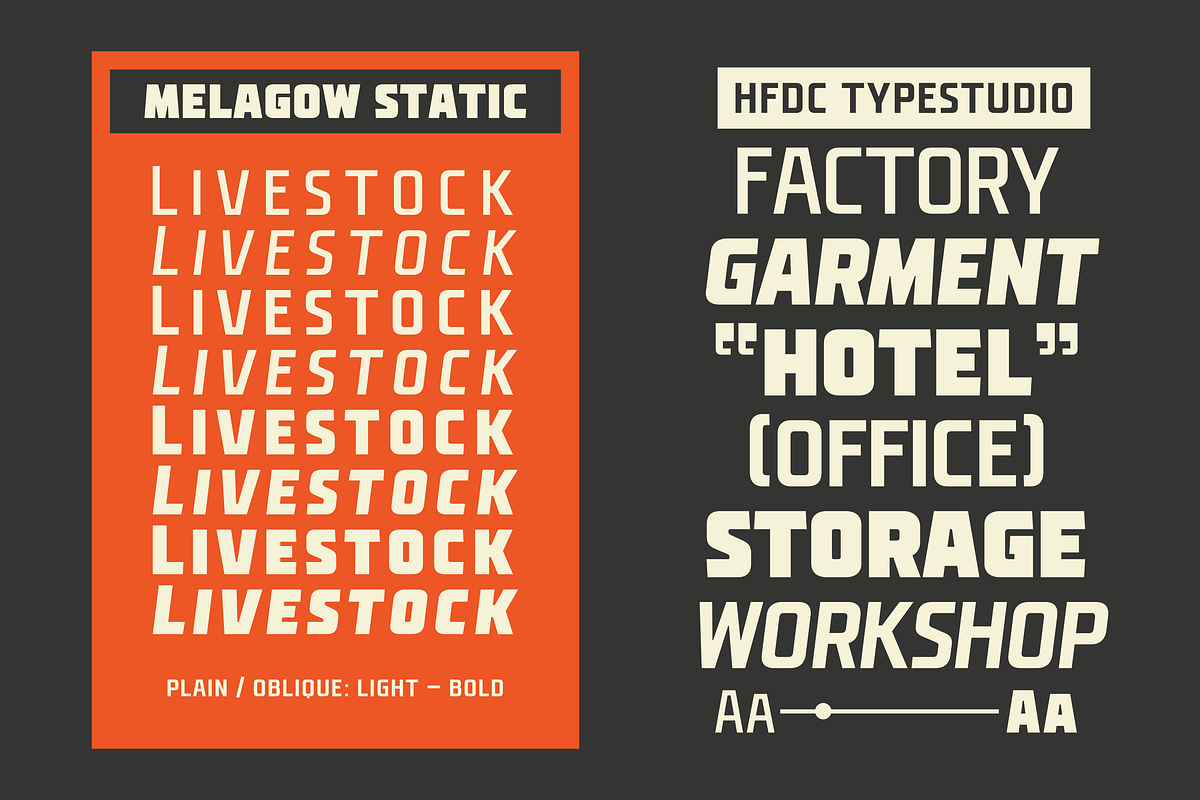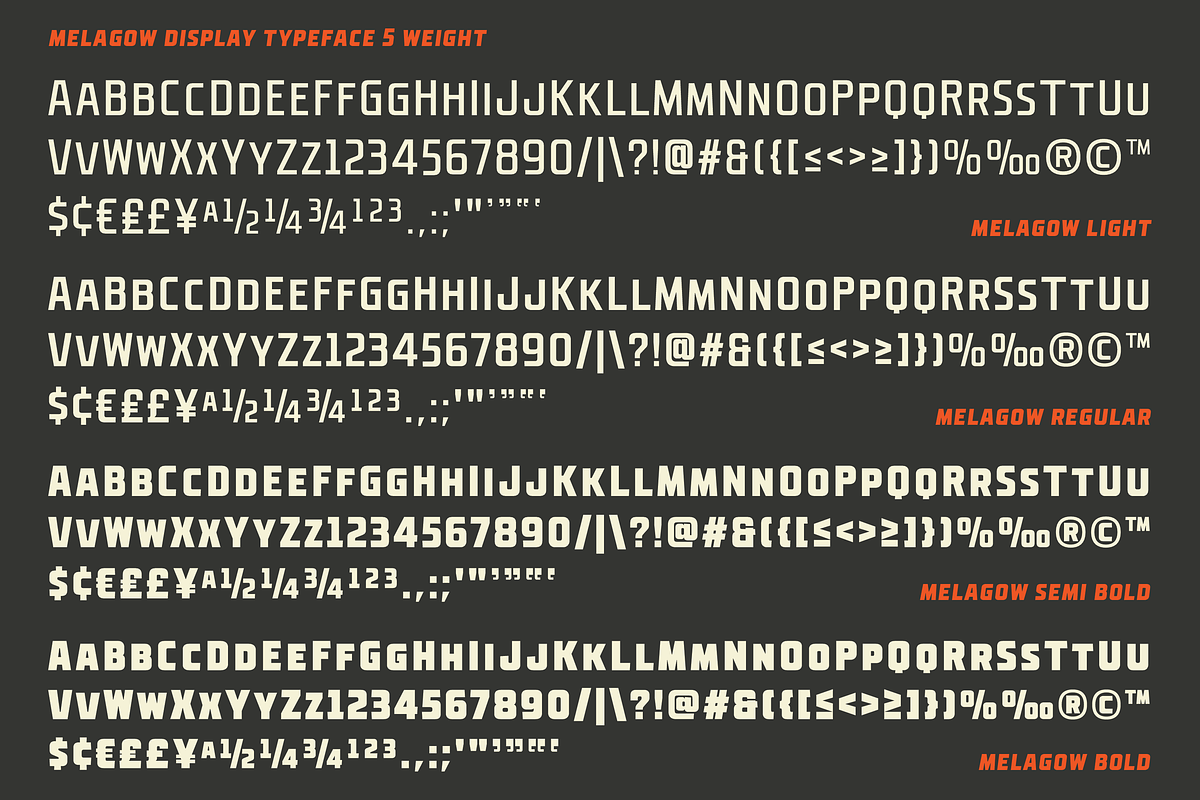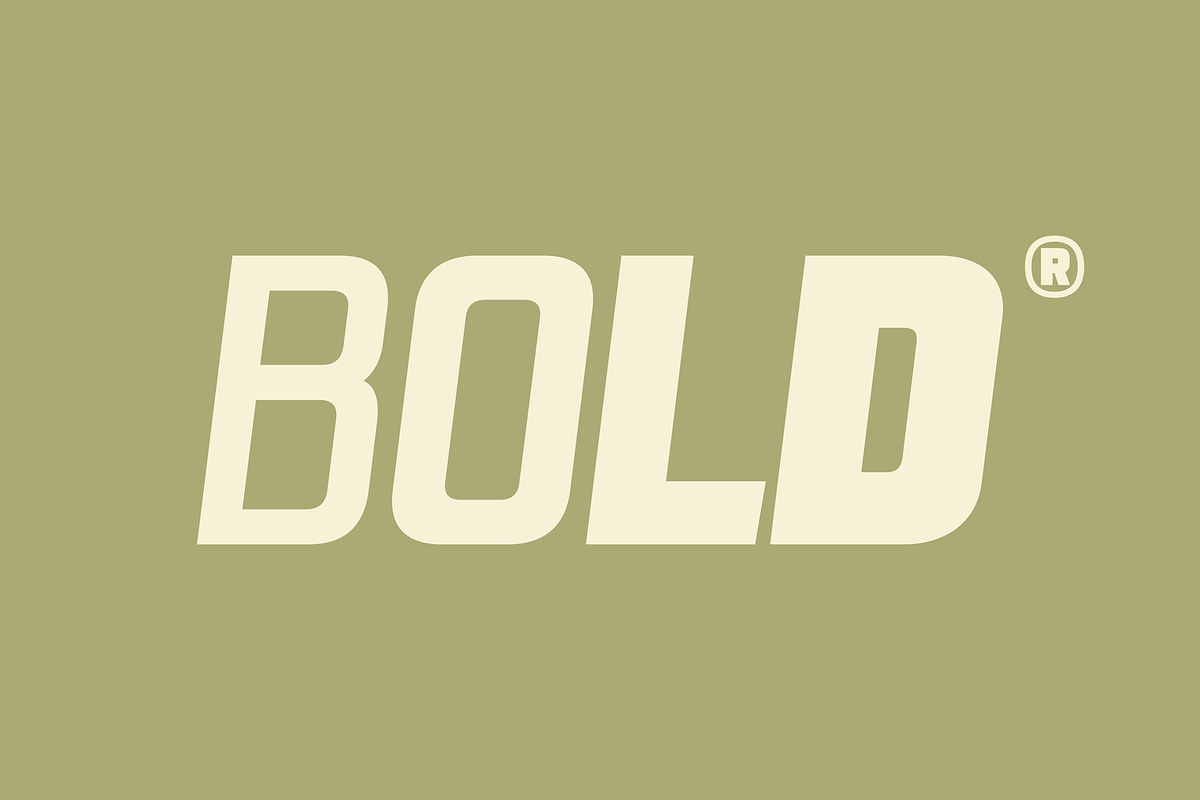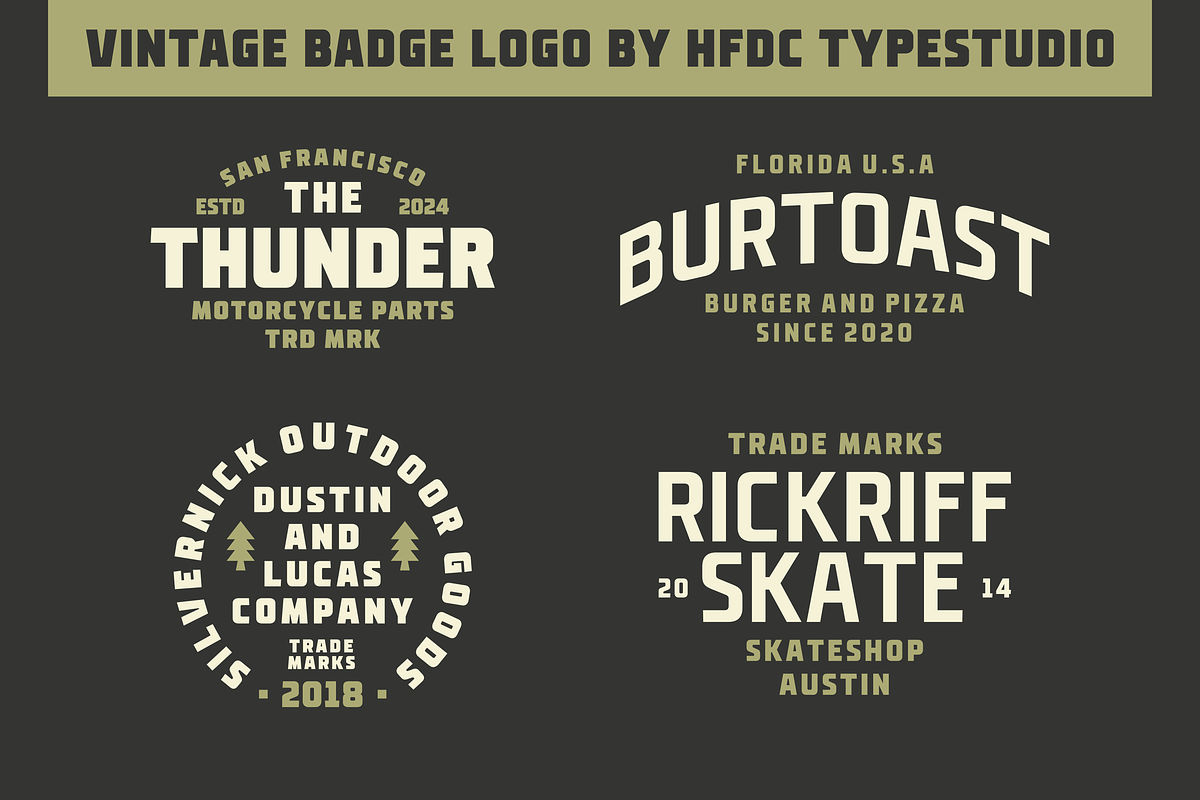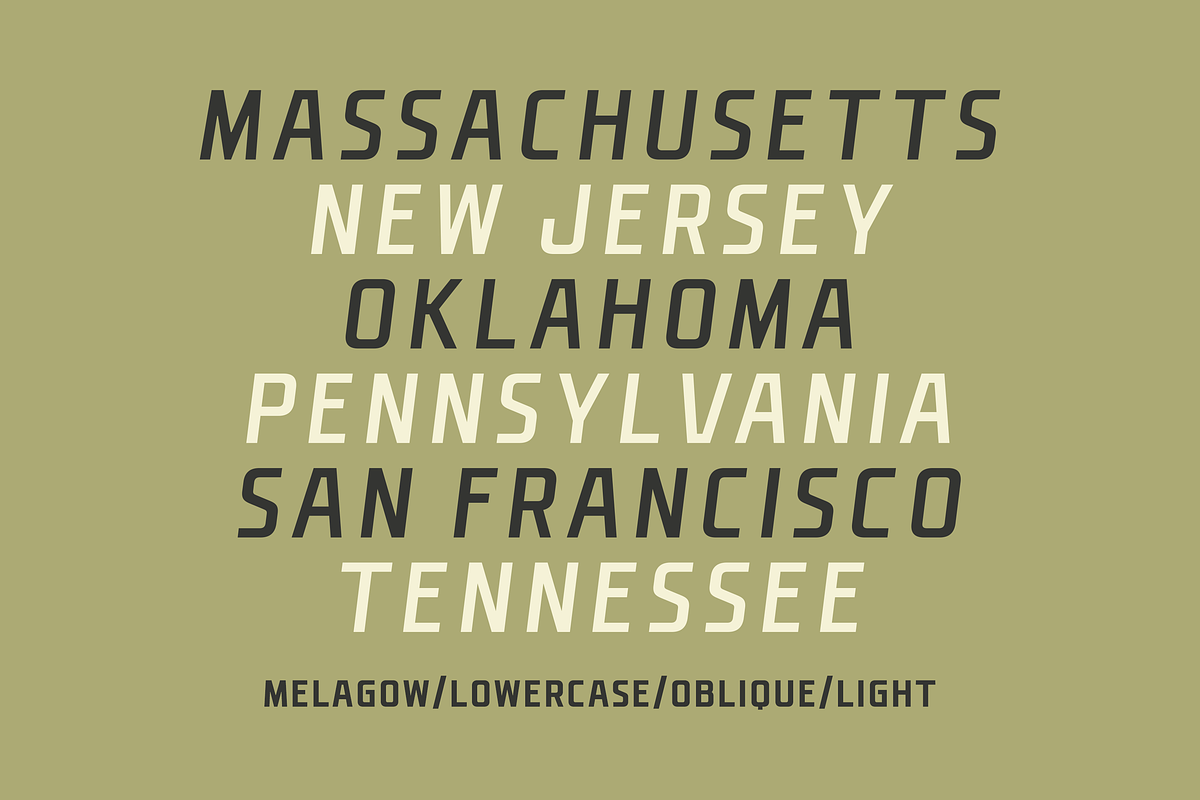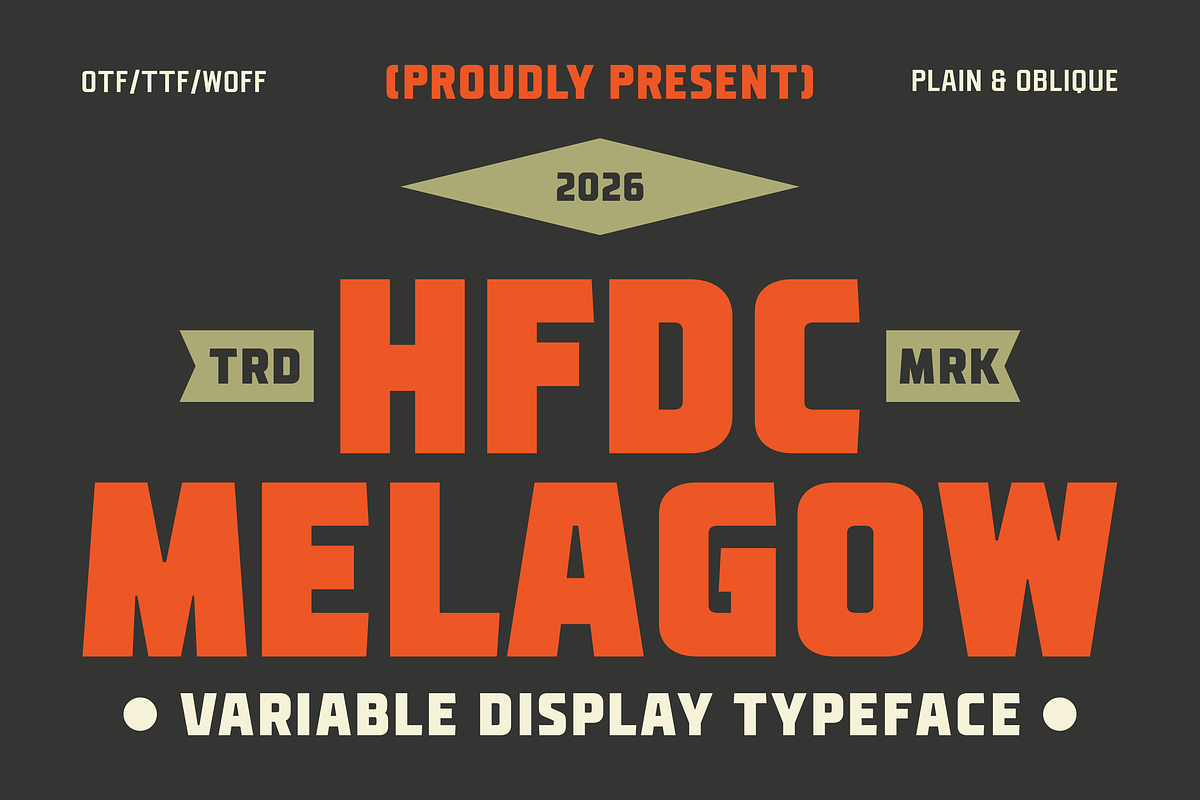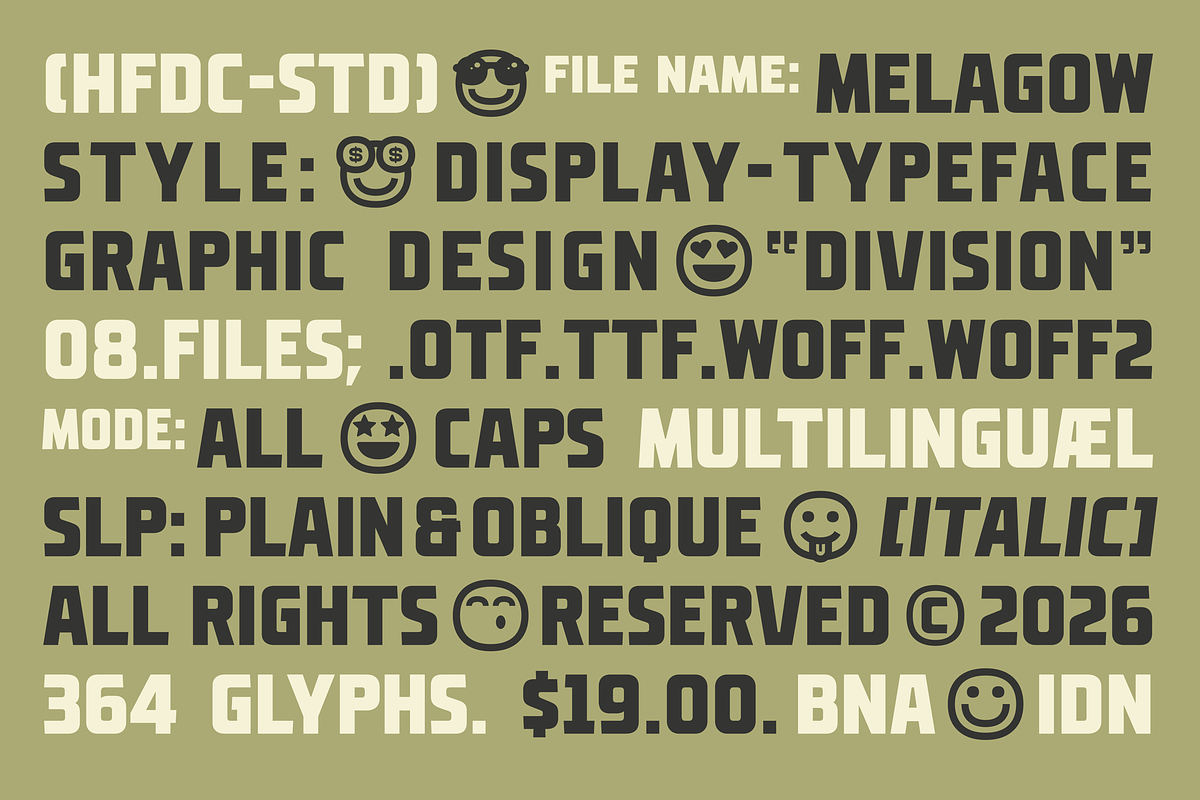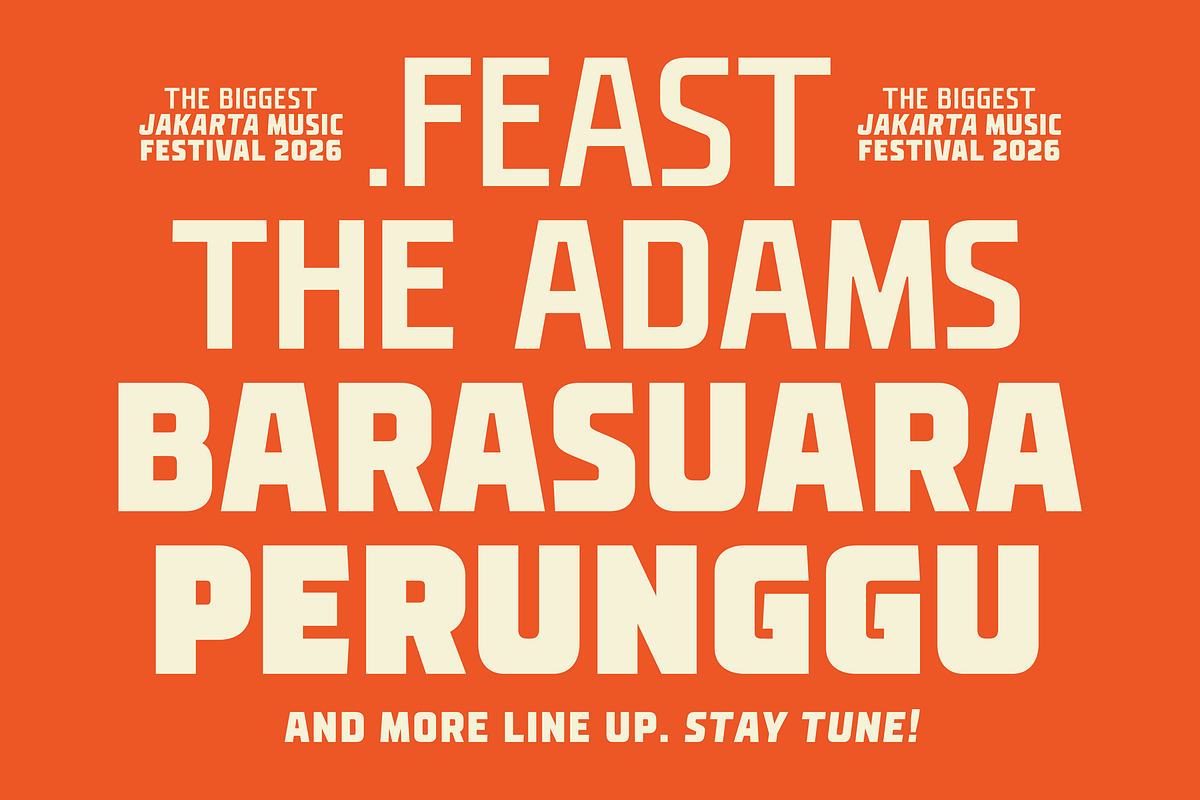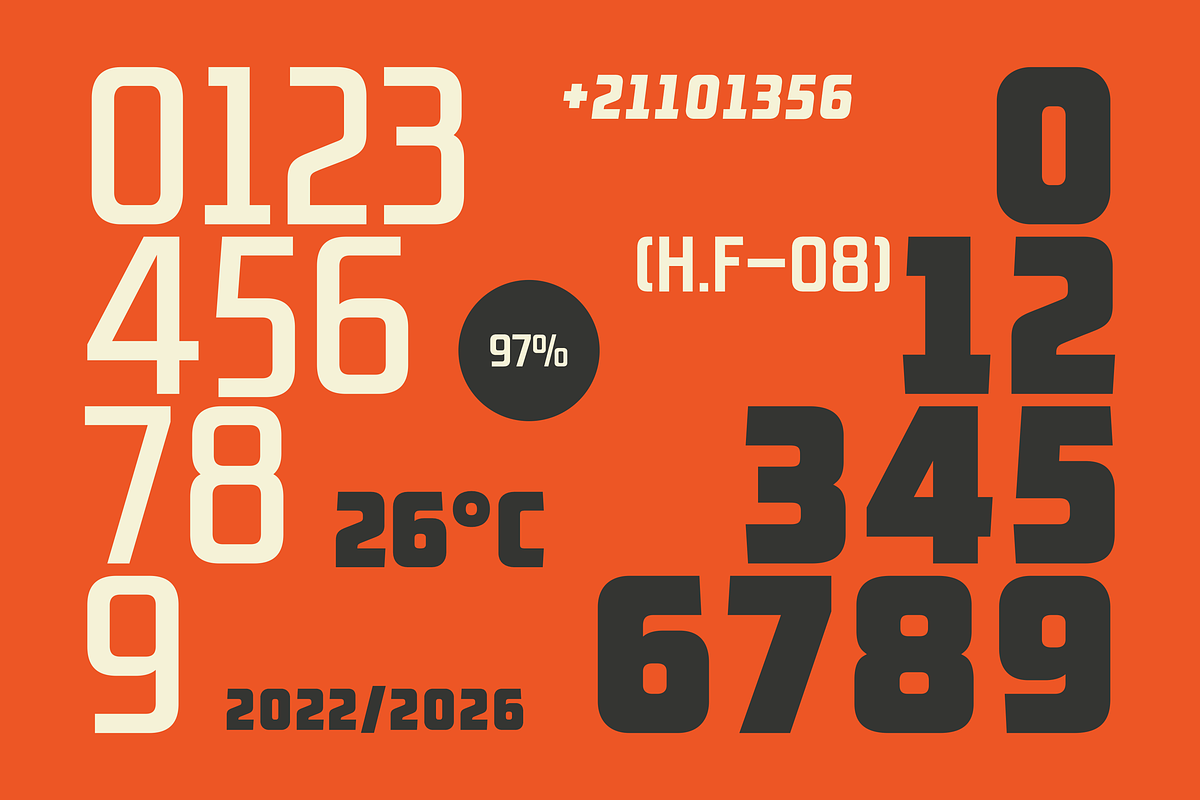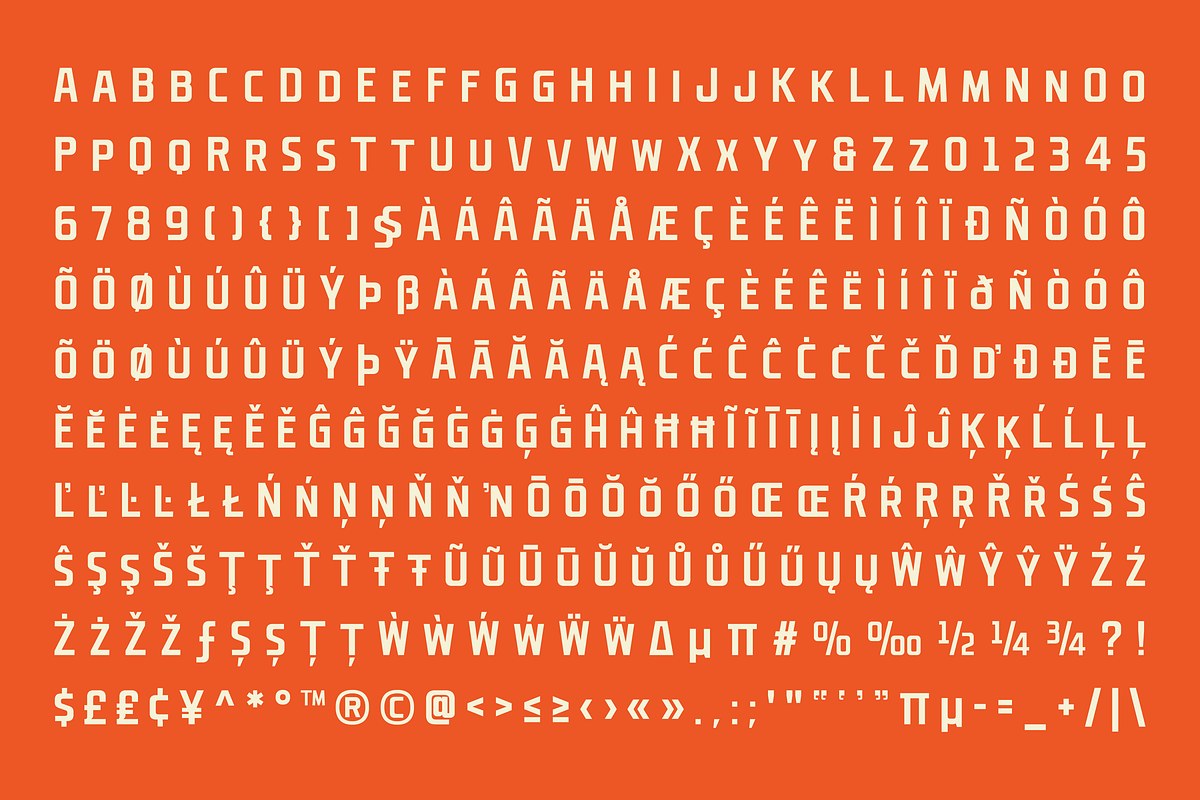
Melagow Display Variable
Introducing Melagow, an elegant display sans serif that embodies a perfect blend of sophistication and sporty flair. This variable font offers a versatile range of weights, making it an exceptional choice for a multitude of design applications. Whether you’re crafting a striking logo, designing an eye-catching movie poster, or enhancing packaging for a premium product, Melagow brings a unique touch that captivates and communicates with clarity. With its \~350+ glyph set, Melagow is also multilingual, catering to diverse audiences and ensuring your message resonates across borders.
Melagow stands out with its refined aesthetic, making it ideal for branding projects that require a contemporary yet timeless look. The font’s clean lines and dynamic forms provide a sense of movement and energy, perfect for sports-related designs or any project that seeks to convey dynamism. Available in multiple file formats, including TTF, OTF, WOFF, and WOFF2, Melagow ensures compatibility across various platforms, making it a practical addition to your design toolkit. Elevate your next project with Melagow and let its sophisticated yet sporty character shine.
4 Weights (Variable Font)
Style: Plain/Normal and Oblique/Italic
Uppercase Character
Number